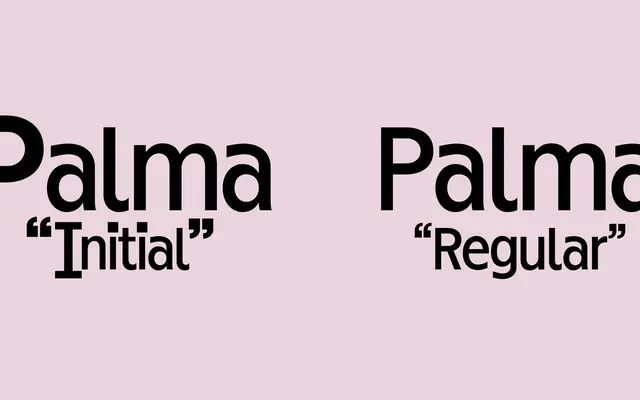
Palma BETA
Charlotte Rohde · Charlotte Rohde
A display typeface drawn from the LED dot-matrix bus destination signs found in Palma de Mallorca and Barcelona.
Two styles make up the family: an Initial variant and a Regular, both faithfully translating the chunky pixel grid of public-transport LED displays into usable type. Glyph coverage spans Basic Latin, Latin-1 Supplement and a selection of Latin Extended characters, accommodating Spanish and related Western European languages. Trial fonts are available for download directly from the foundry.
Directly modelled on the LED dot-matrix displays found on buses in Palma de Mallorca and Barcelona, placing it firmly in the display category as a pixel or bitmap-derived typeface.